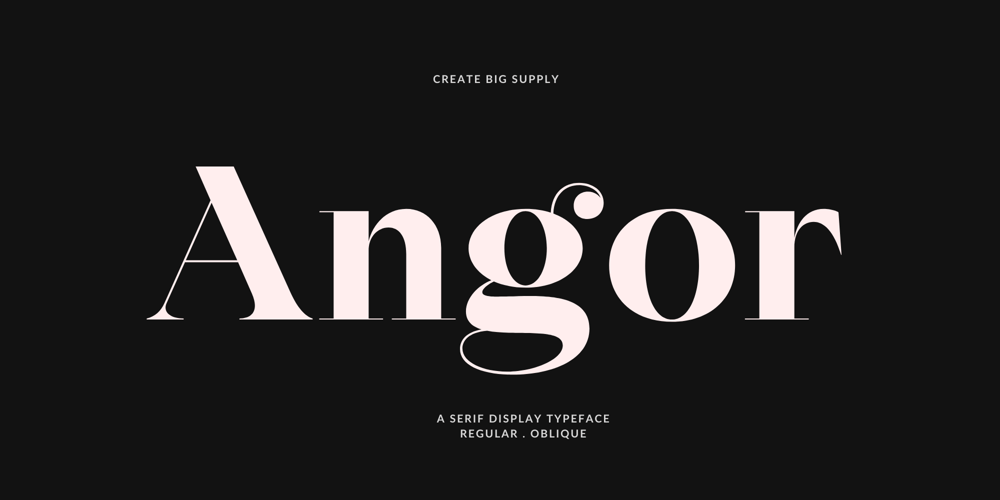
Angor Font Family was designed by Irpan Maulana and published by Create Big Supply. Angor contains 2 styles and family package options. Angor features both uppercase and lowercase characters, providing versatility for a wide range of design applications. Whether you’re creating striking headlines, impactful posters, or eye-catching branding materials, Angor’s bold serif style commands attention and adds a touch of sophistication to your work.With a comprehensive set of numbers and punctuations, Angor ensures clear and effective communication of your message across various platforms and mediums. Its multilingual support enables you to connect with audiences worldwide seamlessly, making it perfect for global projects.Available in both regular and oblique styles, Angor offers versatility and flexibility to suit your design needs. With PUA Encoding, accessing special characters becomes effortless, empowering you to unleash your creativity and add unique touches to your projects.Explore Your Font Emporium today and discover the full potential of Angor to elevate your designs and leave a lasting impression.